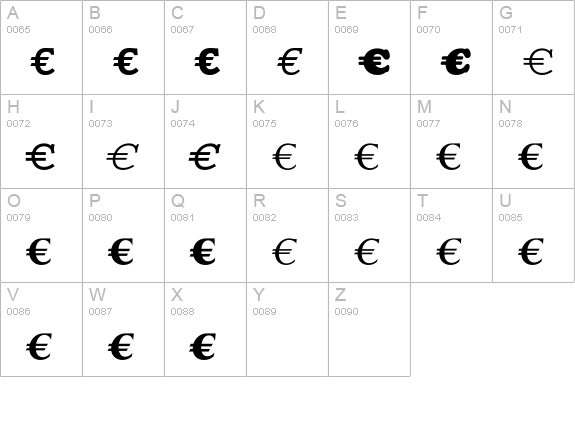
EuroSerifEF-Three is a sophisticated and elegant font that exudes timeless charm and versatility. With its classic serif style and clean lines, this font is perfect for adding a touch of refinement to any design project. Whether used for body text or headlines, EuroSerifEF-Three commands attention and conveys a sense of professionalism. This font is not only visually appealing but also highly legible, making it ideal for both print and digital applications. Its balanced letterforms and subtle variations in stroke width create a harmonious overall look that is both classic and modern. Best of all, EuroSerifEF-Three is available for free download at FontsMarket.com. This means you can easily access and use this beautiful font in your projects without any cost. Don't miss out on the opportunity to enhance your designs with the elegance and sophistication of EuroSerifEF-Three. Download it today and elevate your creative work to new heights.